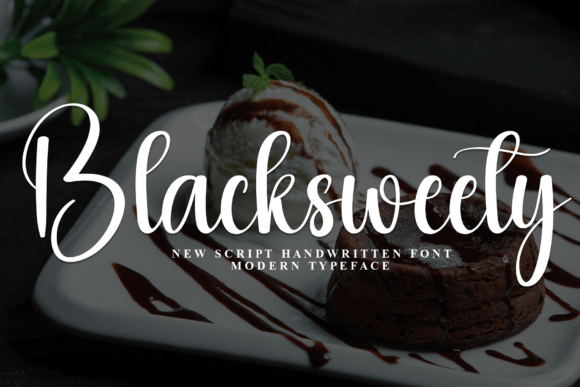
The Ultimate Design Game-Changer: Unleashing the Power of Blacksweety Font
Have you ever been in the middle of a design project, pouring your heart and soul into it, only to hit a roadblock when it comes to finding the perfect font? I certainly have. It was during one of those moments, working on a wedding invitation design for a client, that I stumbled upon the Blacksweety Font. It was love at first sight! ✨
The elegant, creative, and versatile style of Blacksweety Font instantly elevated my design, making it stand out in a sea of sameness. The client was thrilled, and I was relieved. But what really got me excited was discovering just how many uses this font had beyond just wedding invitations. From wall displays and social media post logos to product packaging and stationery, Blacksweety Font has become a staple in my design toolkit.
- ✨ Extraordinary Experience: The Blacksweety Font provides a unique and creative experience, perfect for designers looking to add a personal touch to their projects.
While Blacksweety Font is incredibly versatile, there are a few minor considerations to keep in mind. ⚠️ For instance, users should be aware that some advanced features might require a bit of exploration to master, especially for those new to using OpenType fonts. Additionally, while the font is highly adaptable, its script style might not be the best fit for every project, particularly those requiring a more formal tone.
The Story Behind Blacksweety Font: A Designer’s Inspiration
While the exact origins of Blacksweety Font might not be well-documented, it’s clear that it was created with the intention of providing designers with a versatile, creative tool. Imagine a designer, sitting at their desk, brainstorming ideas for a unique font that could capture the essence of modern elegance and vintage charm. This is the story behind Blacksweety Font – a story of innovation, creativity, and a passion for design.
Blacksweety Font has been a game-changer for my design projects, offering a unique blend of style, versatility, and ease of use. Whether you’re a professional designer, crafter, or creative hobbyist, this font is sure to elevate your work and provide that extra special something that sets your designs apart.